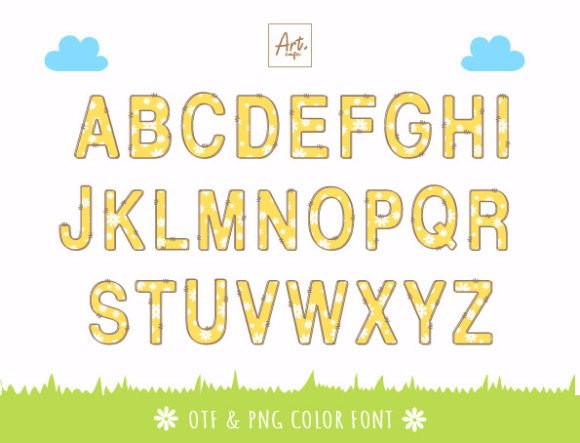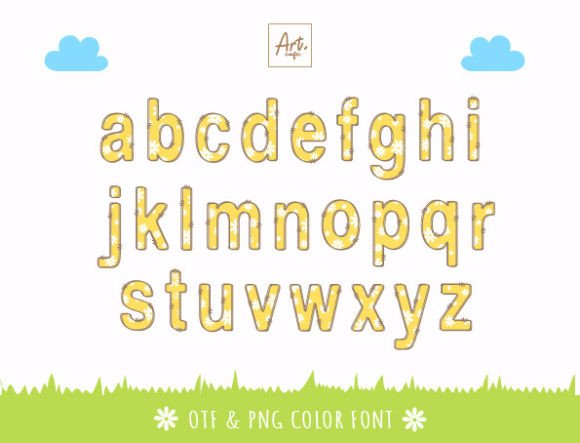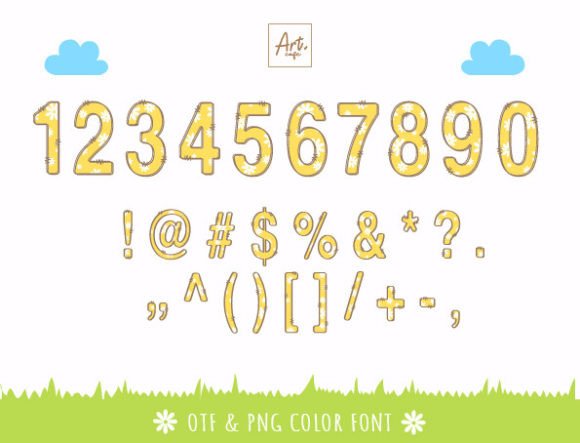
Spring into Creativity with the Daisy Spring Font
There’s nothing quite like the feeling of cracking open a fresh pack of colorful markers and starting a new art project. The blank page is like a canvas waiting for your imagination to come alive, and the possibilities seem endless. As a designer, you’re always on the lookout for the perfect font to match your creative vision, and that’s where the Daisy Spring Font comes in.
This adorable display font is specifically designed to capture the essence of spring, making it perfect for Easter-themed projects, kids’ crafts, and any design that needs a touch of whimsy. With its bold, playful style, the Daisy Spring Font is a valuable addition to any designer’s toolkit, offering support for all English characters and compatibility with a range of design programs.
Daisy Spring Font Key Features
- Unique Characteristics: Daisy Spring Font features a unique blend of modern and vintage elements, with a mix of rounded and geometric shapes, creating a distinctive and eye-catching design.
- Font Style: The font is available in Regular and Bold styles, offering a range of options for various design applications.
Daisy Spring Font Review
I’ve had the chance to work with the Daisy Spring font, and I’m excited to share my honest thoughts.
- Soft, elegant curves that add a touch of whimsy to any design.
- Well-balanced proportions that make it easy to read and comprehend.
- Extensive character set that includes a range of languages, making it a great choice for global designs.
- Playful, spring-inspired flair that’s perfect for branding and marketing materials.
- May not be suitable for formal or professional settings, as it can come across as too playful.
- Some characters may not display correctly in certain font sizes or styles, which can affect overall design consistency.
- Not as versatile as some other fonts, which may limit its use in different design contexts.
Overall, I think the Daisy Spring font is a lovely choice for designs that need a touch of elegance and whimsy. While it may have some limitations, its strengths make it a great addition to any designer’s toolkit. With the right design approach, it can add a unique and memorable touch to any project.
The Daisy Spring font is ideal for:
- Creating a whimsical and playful brand identity.
- Designing children’s books and educational materials.
- Adding a touch of elegance and sophistication to wedding invitations and stationery.